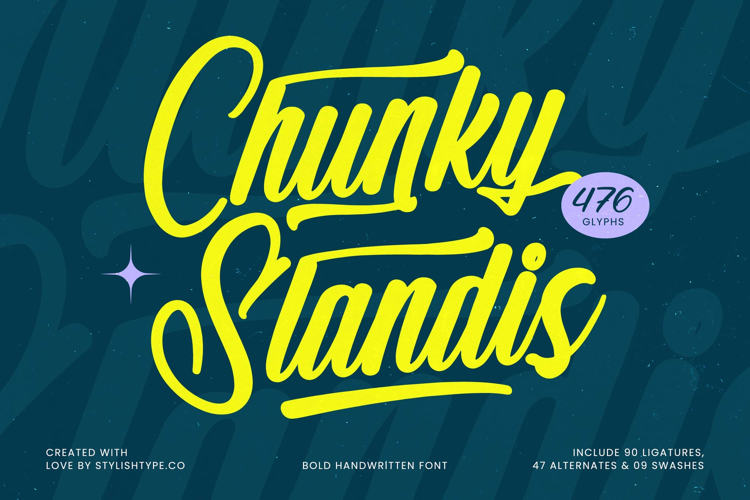
Chunky Slandis - Bold Handwritten Font Script
Chunky Slandis
Chunky Slandis Italic
Make an unforgettable statement with Font Chunky Slandis - Bold Handwritten Font Script, a uniquely expressive typeface designed to capture immediate attention. Its bold, fluid strokes convey an authentic handwritten charm, infused with a lively and confident personality. This script font masterfully blends playful energy with a professional aesthetic, ensuring your message is both memorable and engaging. It’s the ultimate choice for designs that need to speak with genuine character.